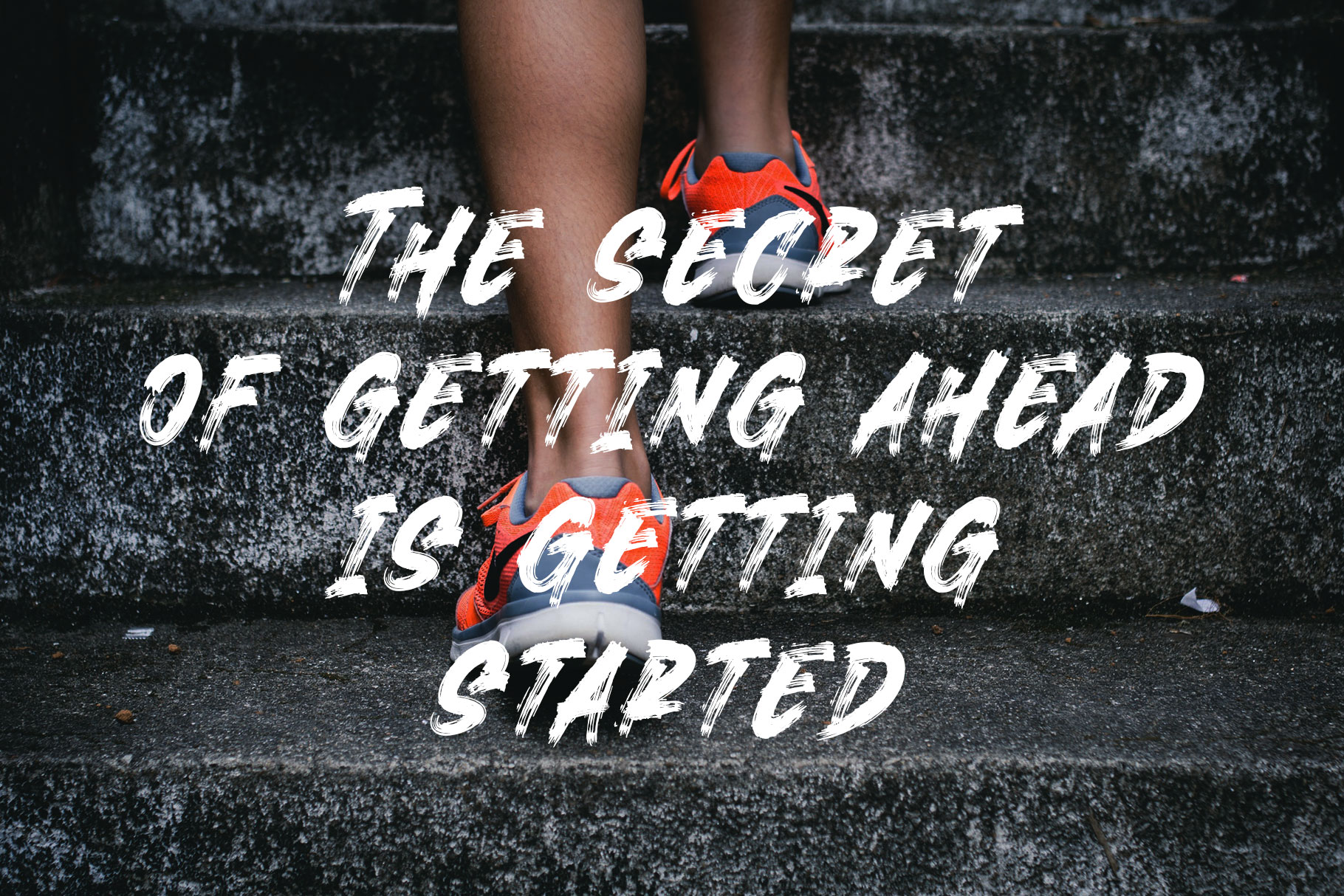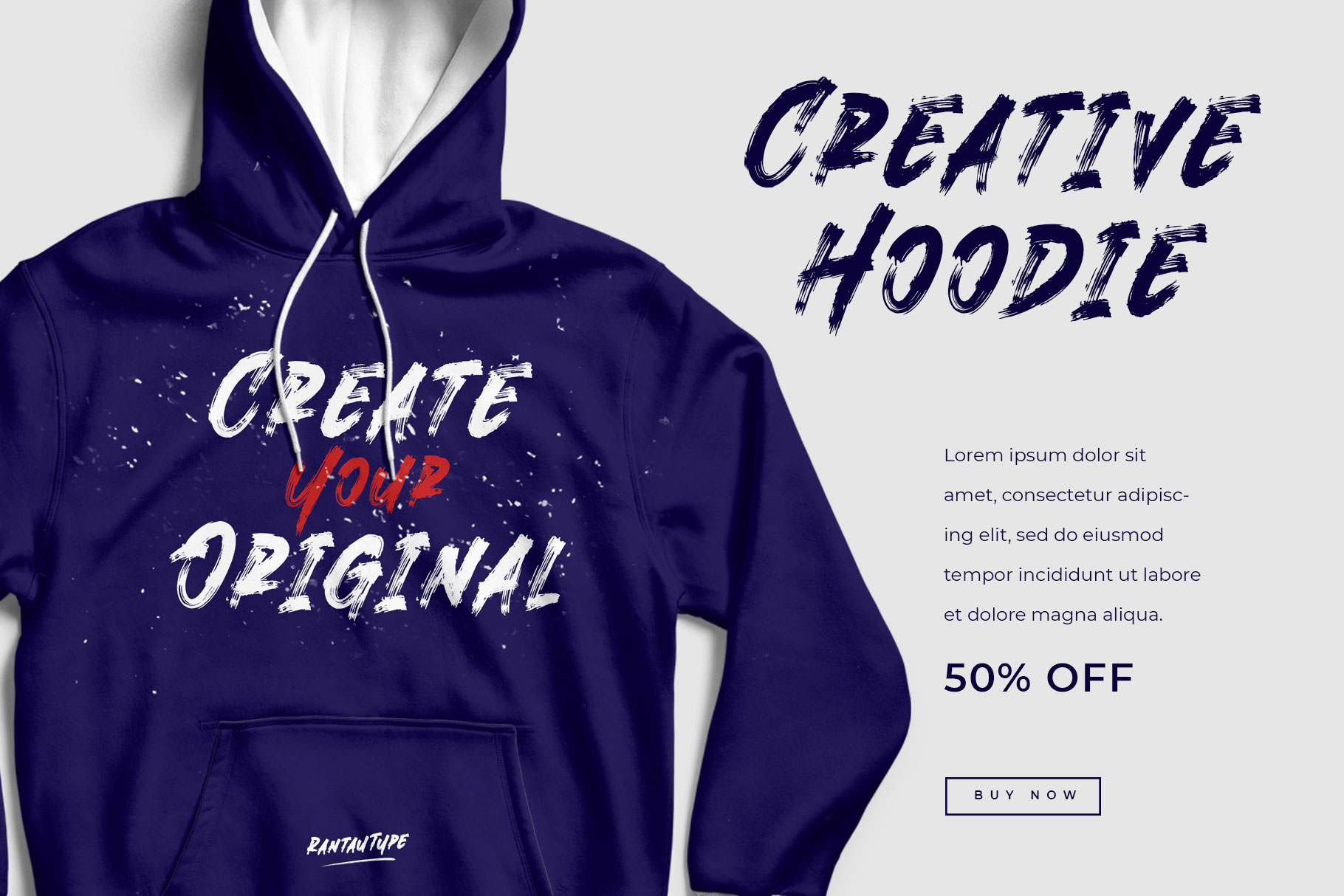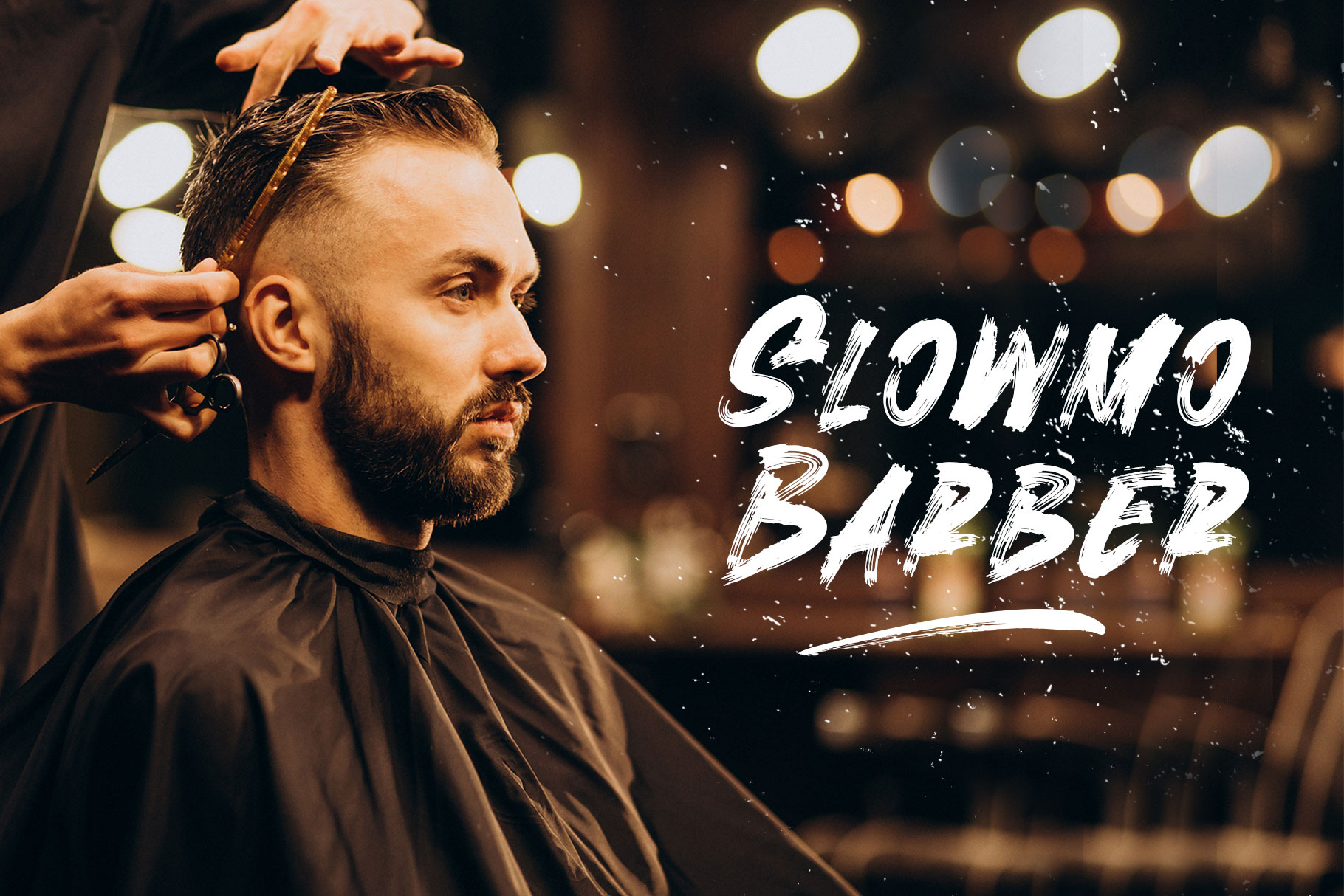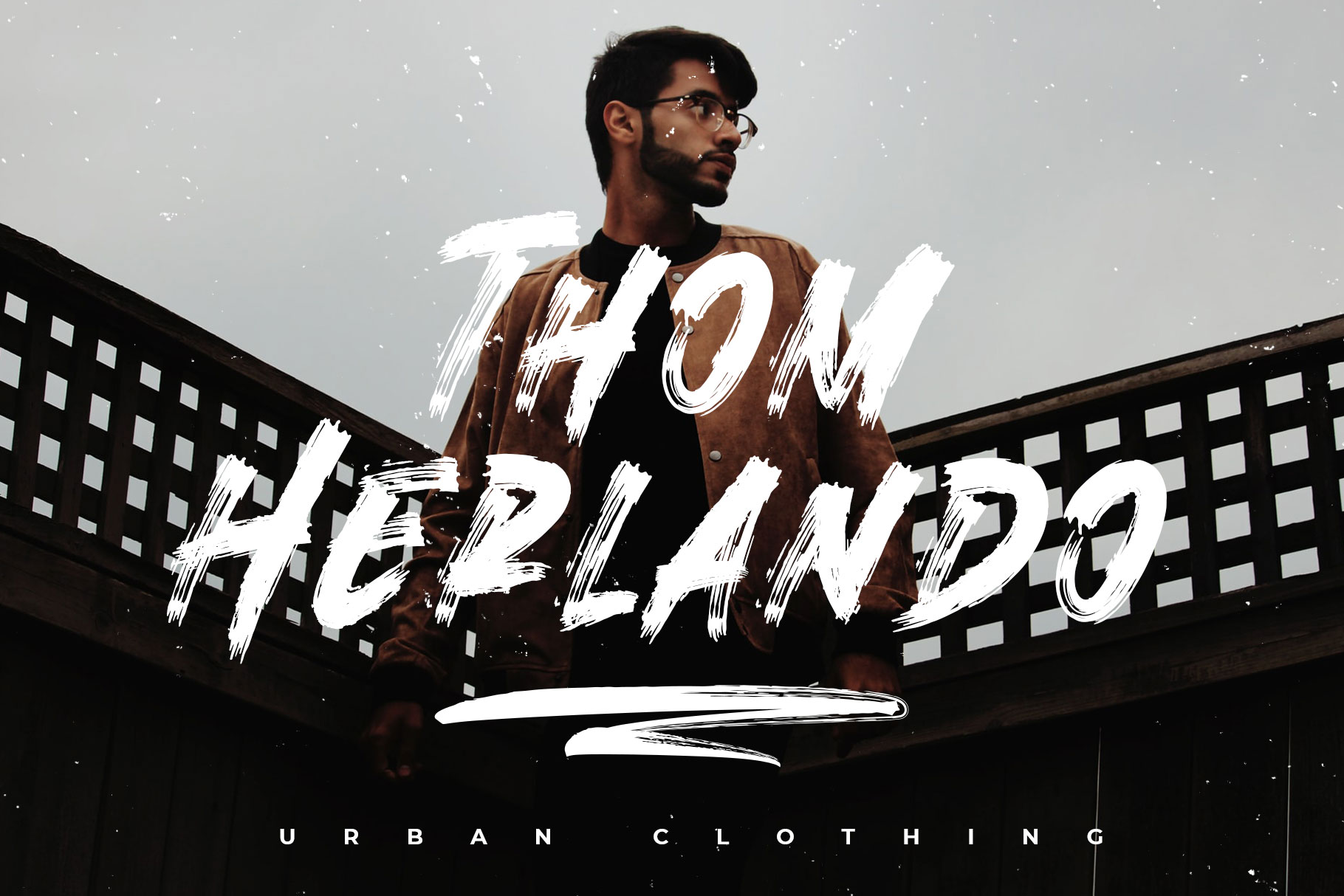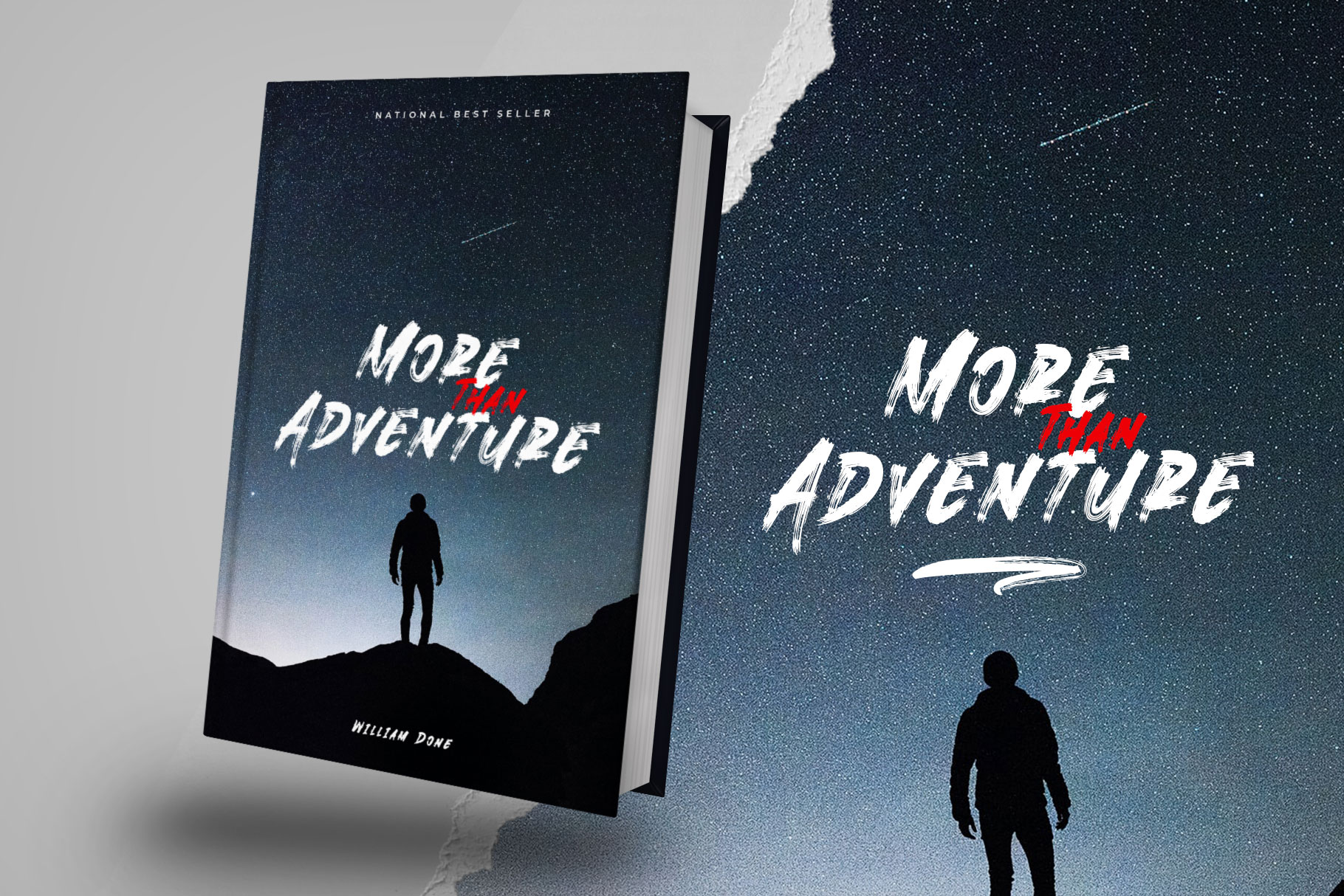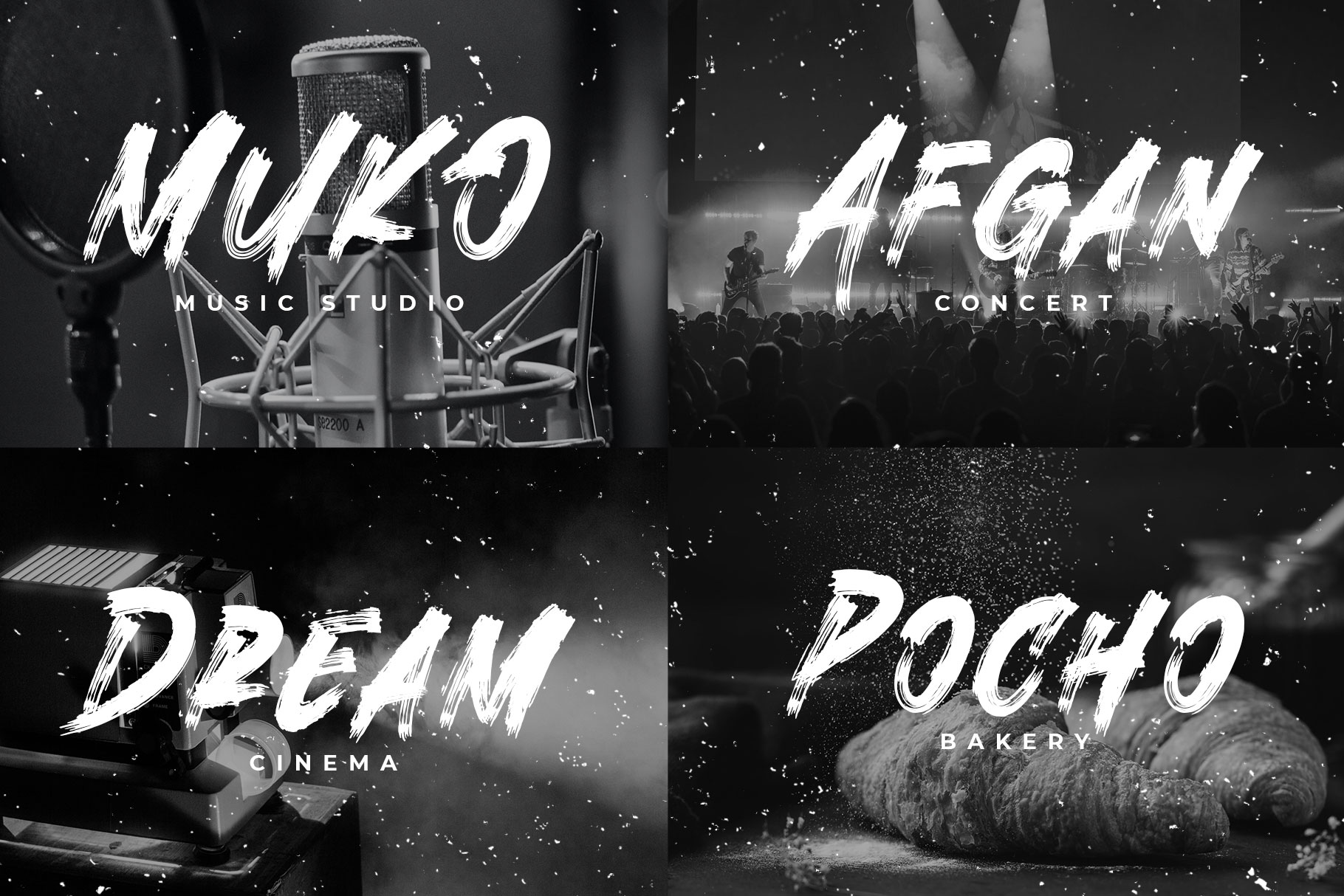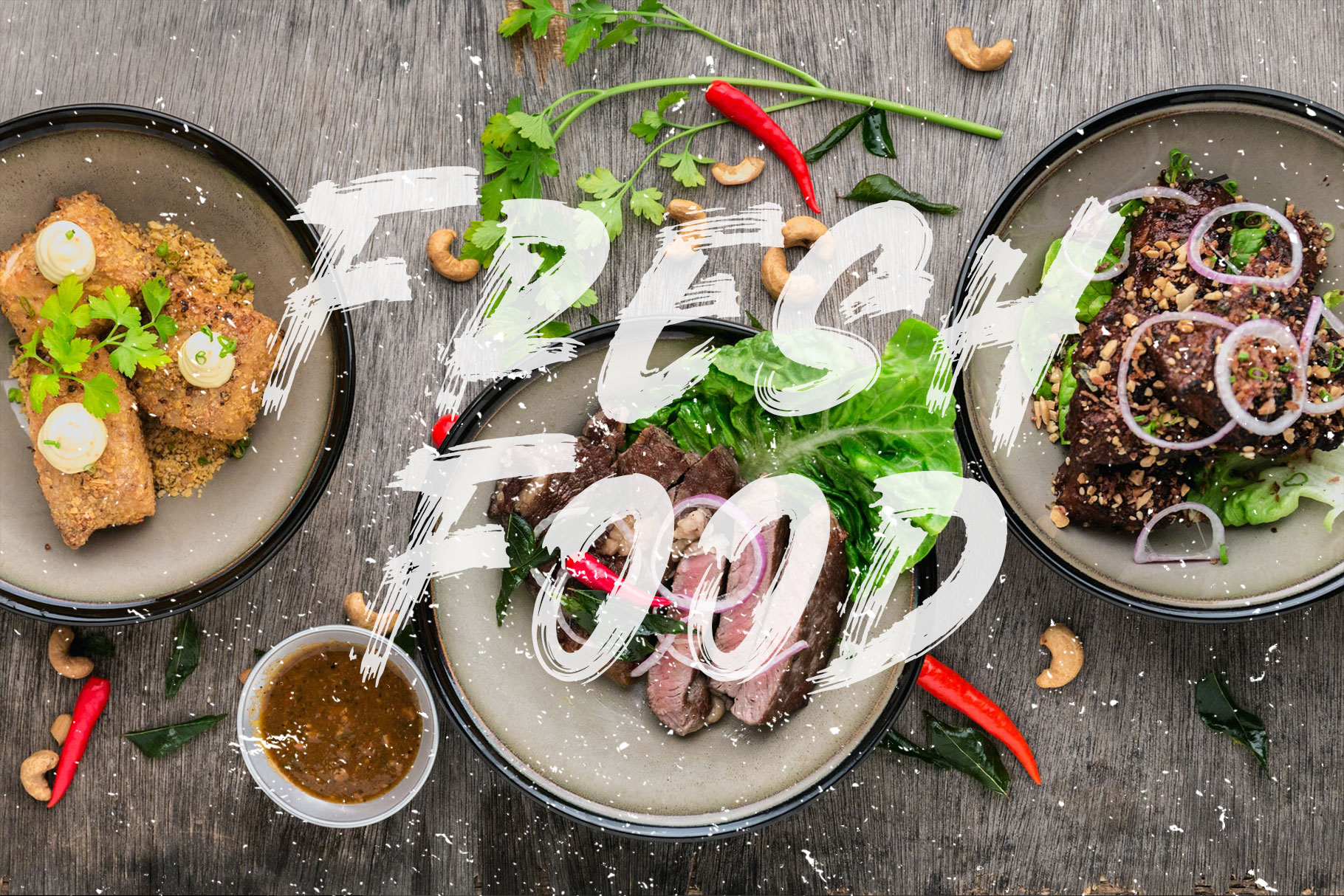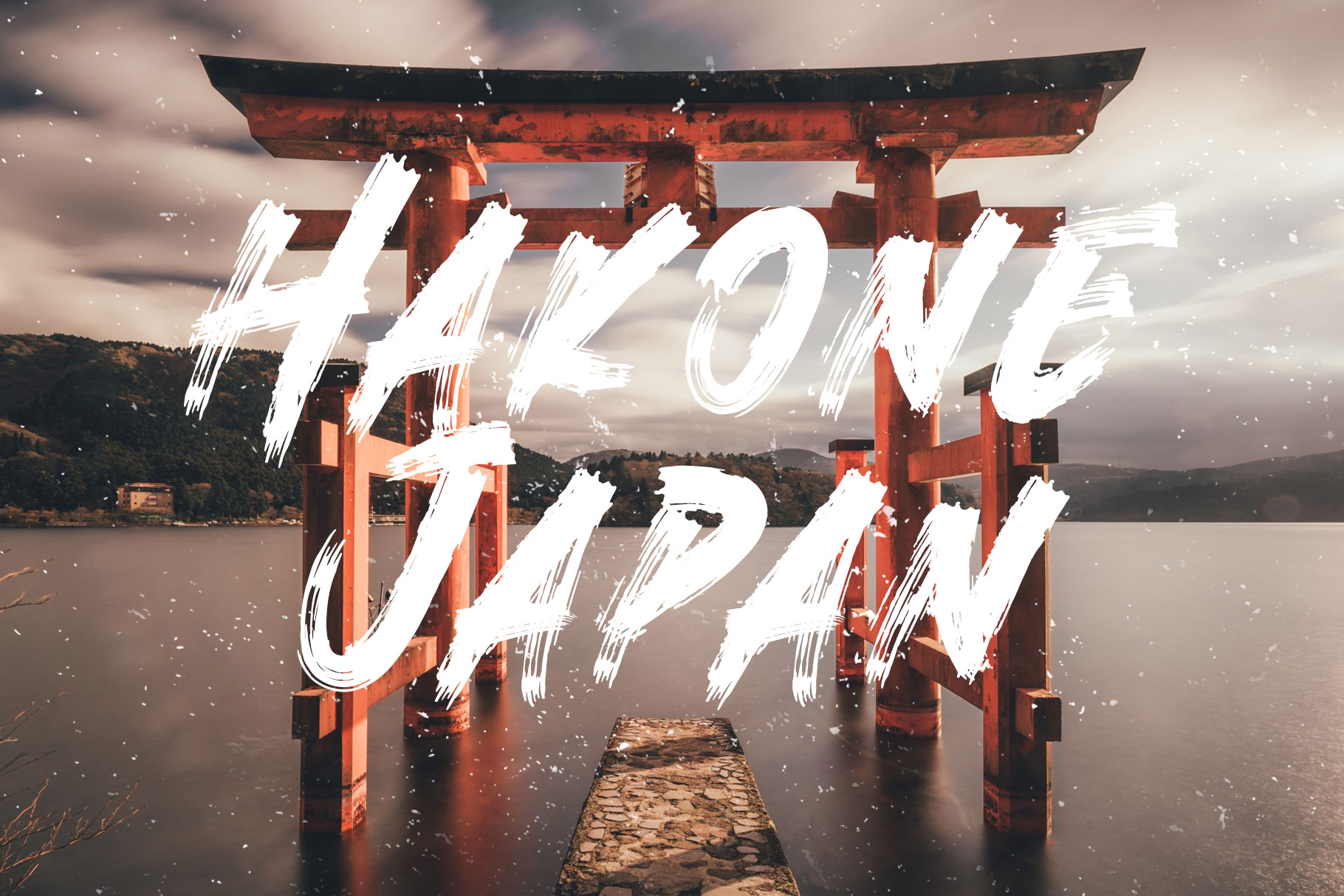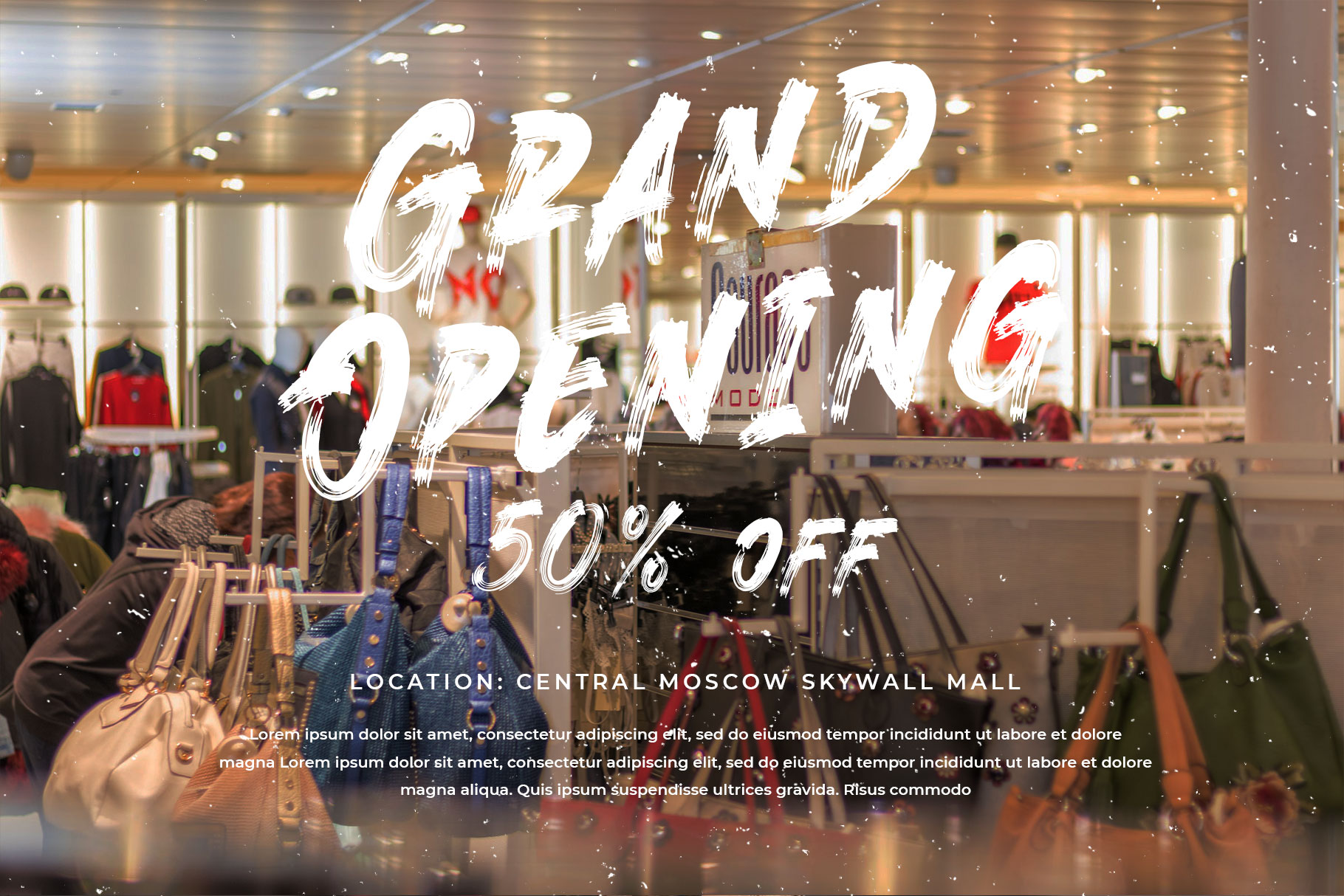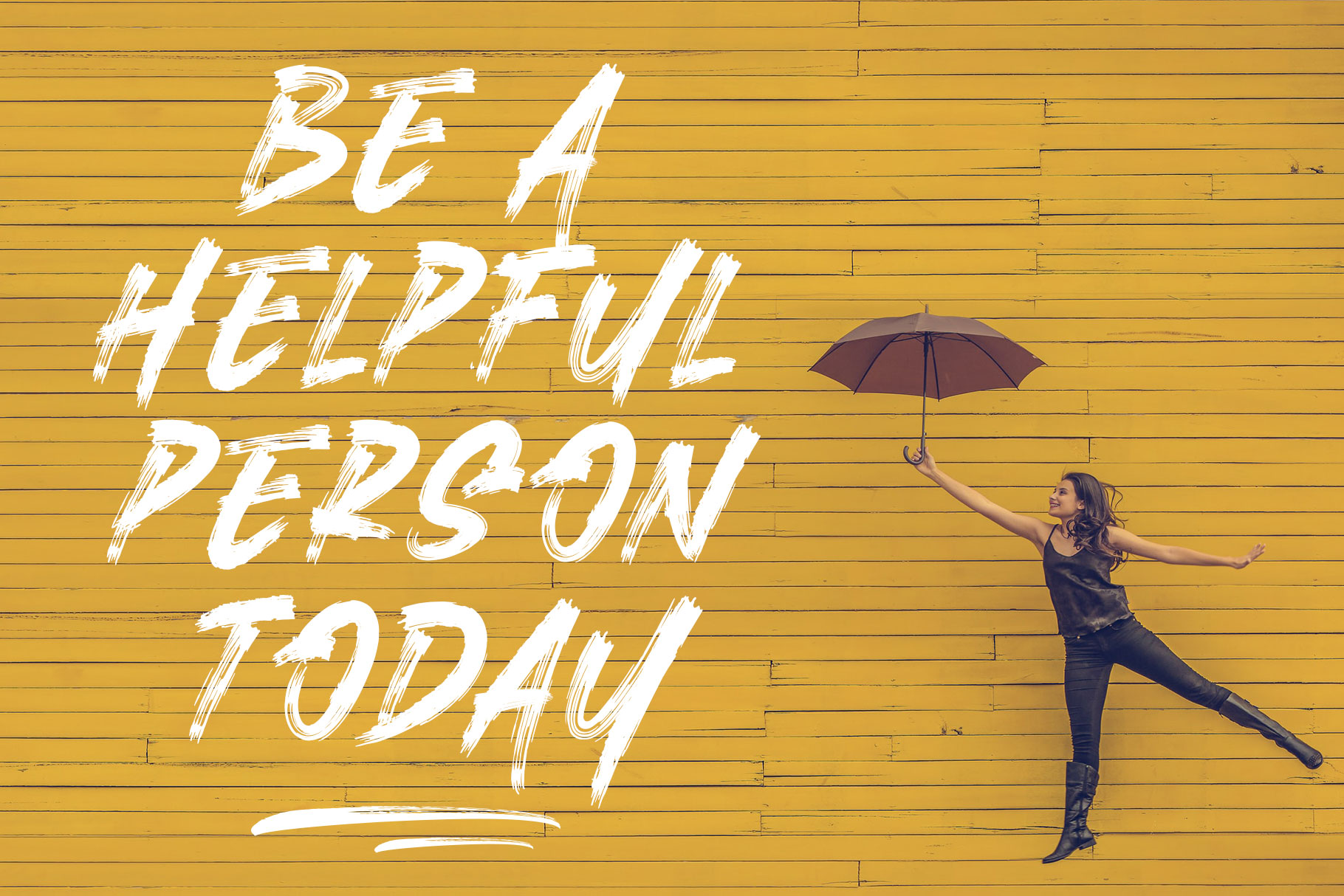
Proudly present  brush  font “KingNeverDie”. This font is authentic hand brush imperfections. It has a perfectly paired complimentary marker font and a super handy set of bonus Swash and if you bored with the uppercase i already make alternate for the uppercase. We keep this font looks modern, readable, stylish, strong, cool, bold, catchy and easy to use.  KingNeverDie is the great choice for watermark on photography, logo design, quotes, album cover, magazine, tshirt and many other design project. KingNeverDie here to make your work to high level!!!
• NumberialFunctional
• Alternate Uppercase
• Swash
• Multilinggual support
KingNeverDie Brush Font